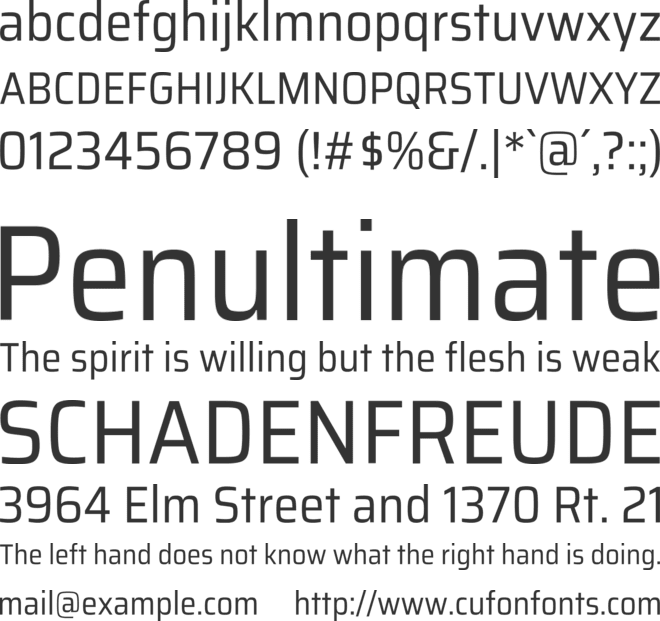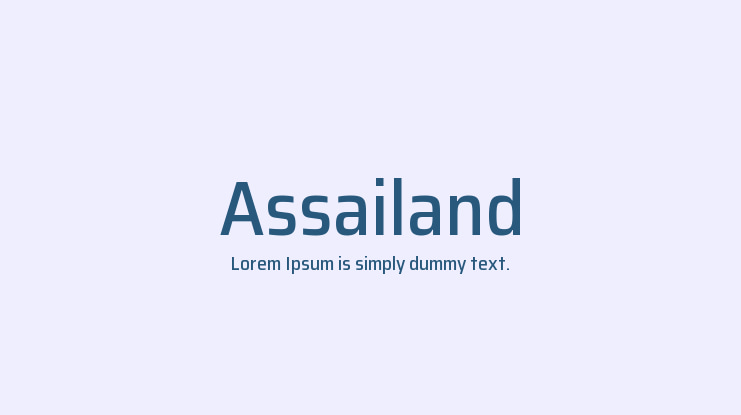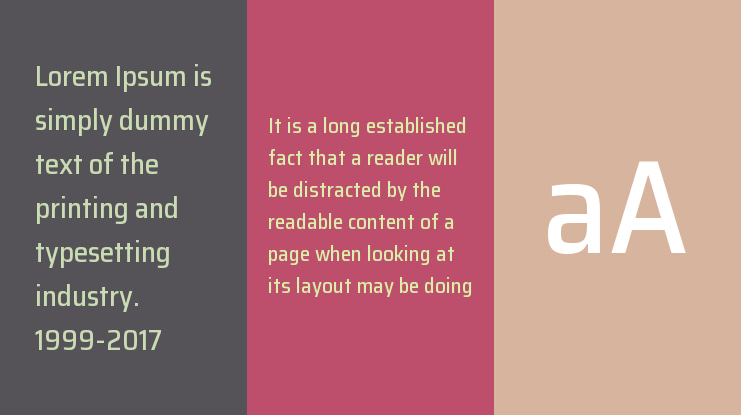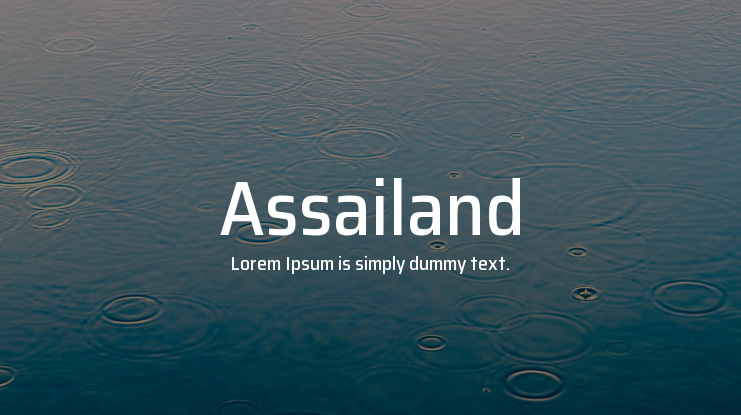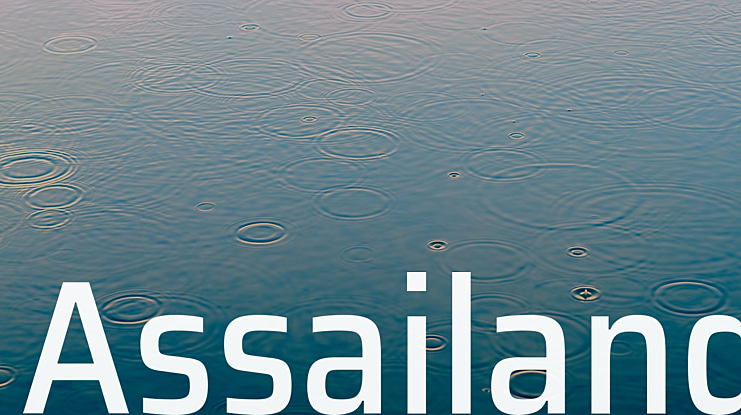
Assailand Font Family
Hector Gatti with collaboration of the Omnibus-Type team
Assailand (a pun on AΓ§ailΓ’ndia, a city from northeastern Brazil) is a modification of Saira SemiCondensed. Its objectives are spatial efficiency (both horizontal and vertical) and be futuristic. It has 9 weights with with matching italics.